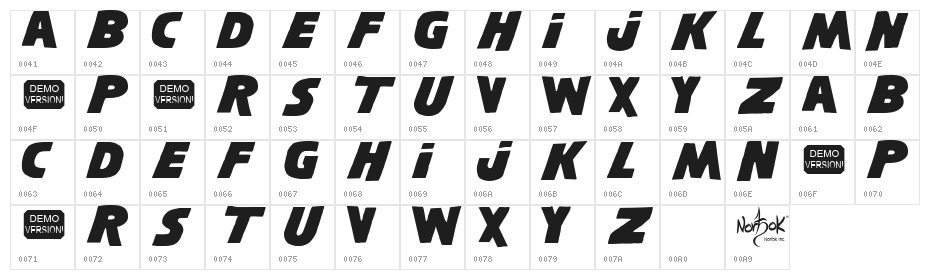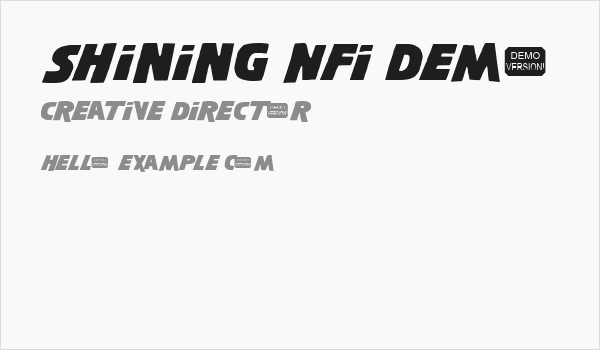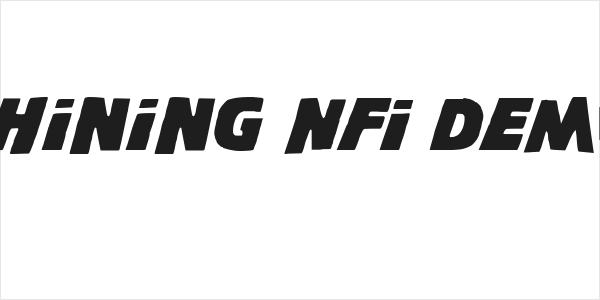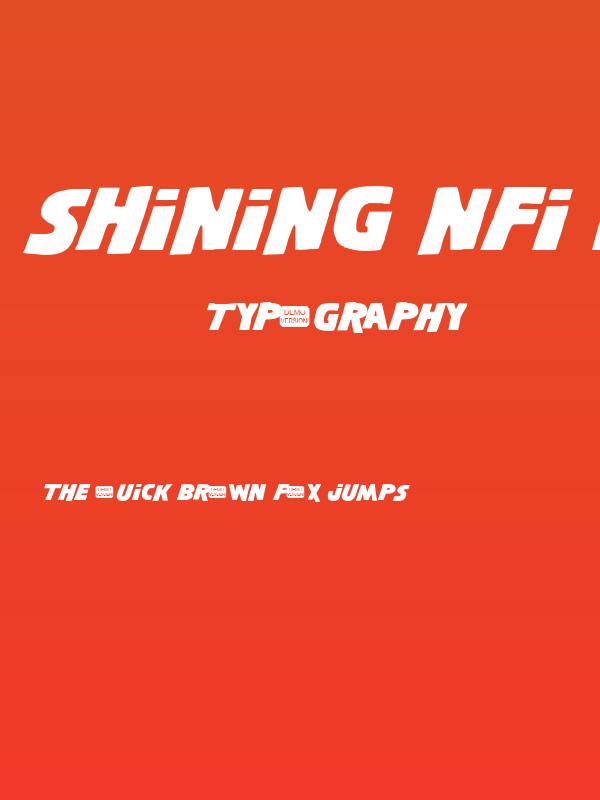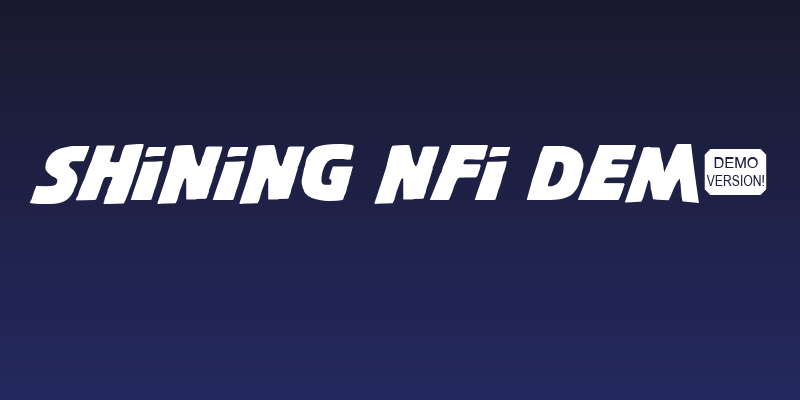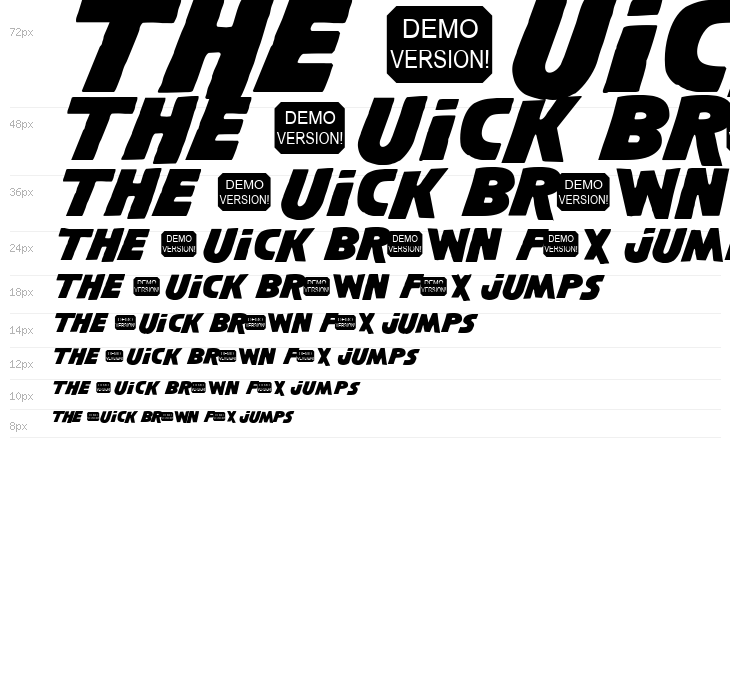
Shining NFI Demo Font
Shining NFI Demo Description
This font features a bold and dynamic style with a strong presence. The characters are slightly slanted, giving a sense of motion and energy. The strokes are thick and consistent, providing a robust and impactful appearance. The uppercase and lowercase letters maintain a uniform width, contributing to a cohesive look. The font's design is modern and sleek, making it suitable for attention-grabbing headlines and titles. The overall aesthetic is bold and assertive, ideal for projects that require a strong visual impact.
| Proposed Projects | Ideal for sports branding, dynamic posters, and impactful headlines. |